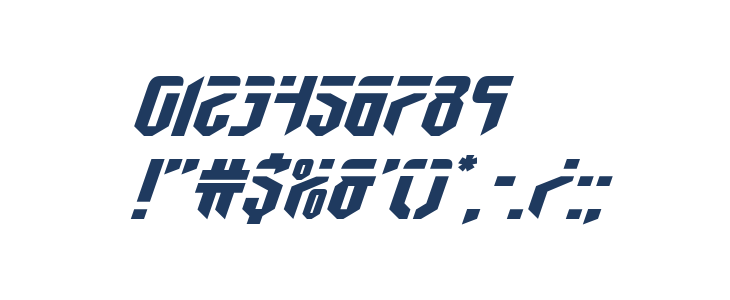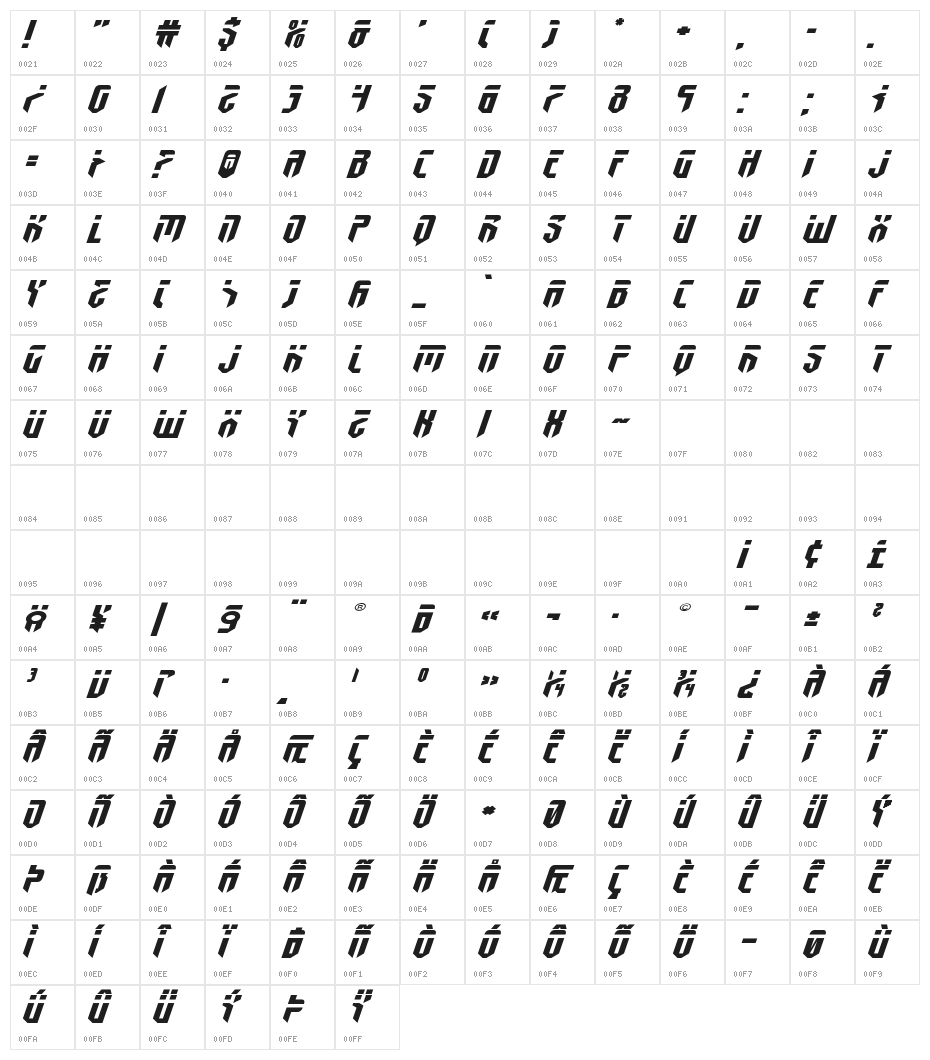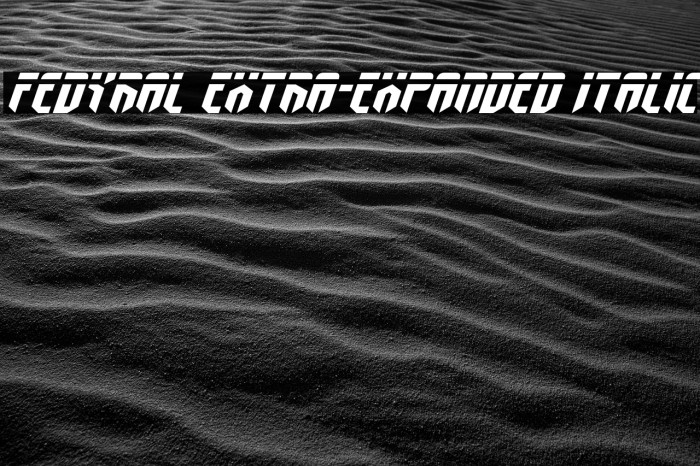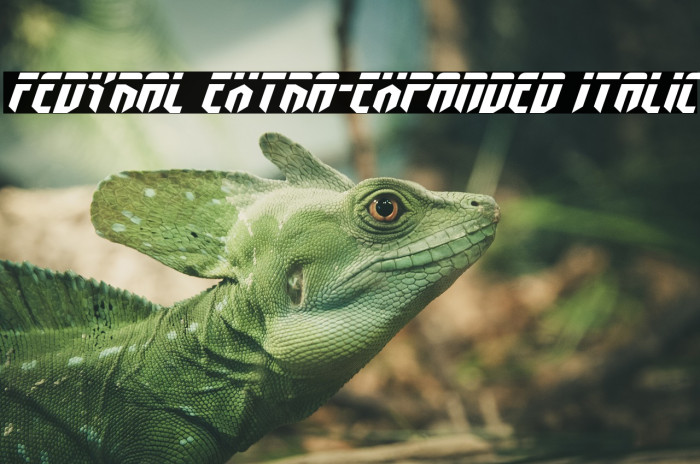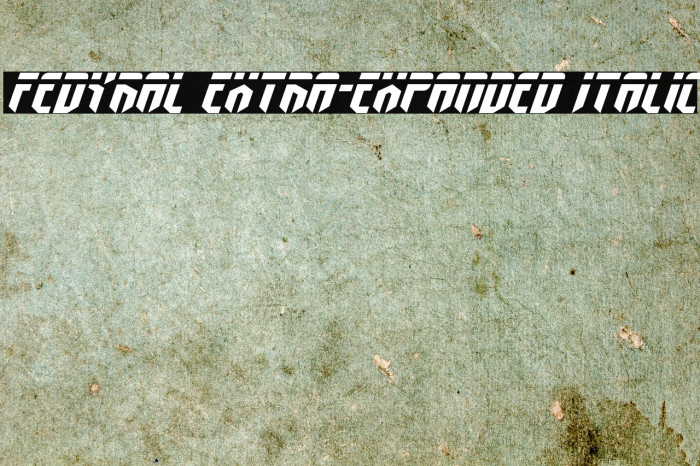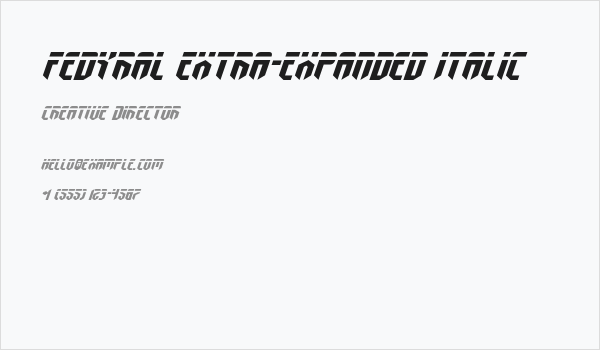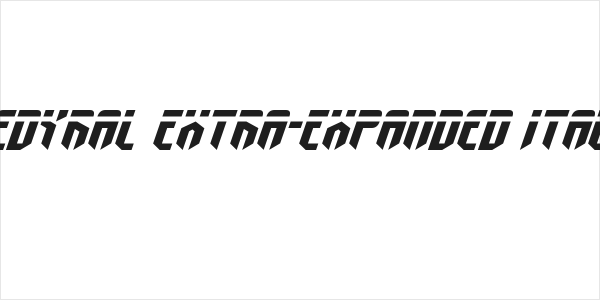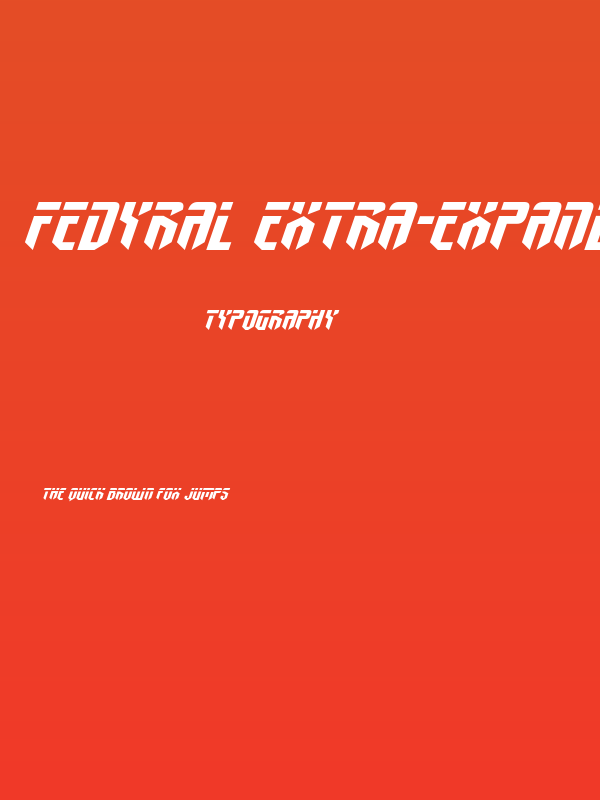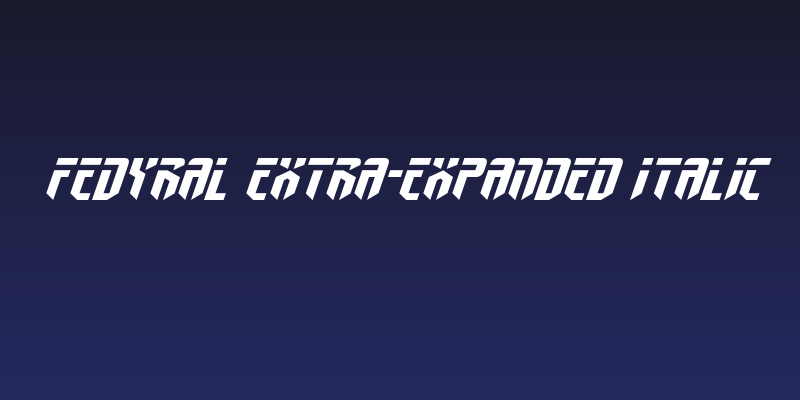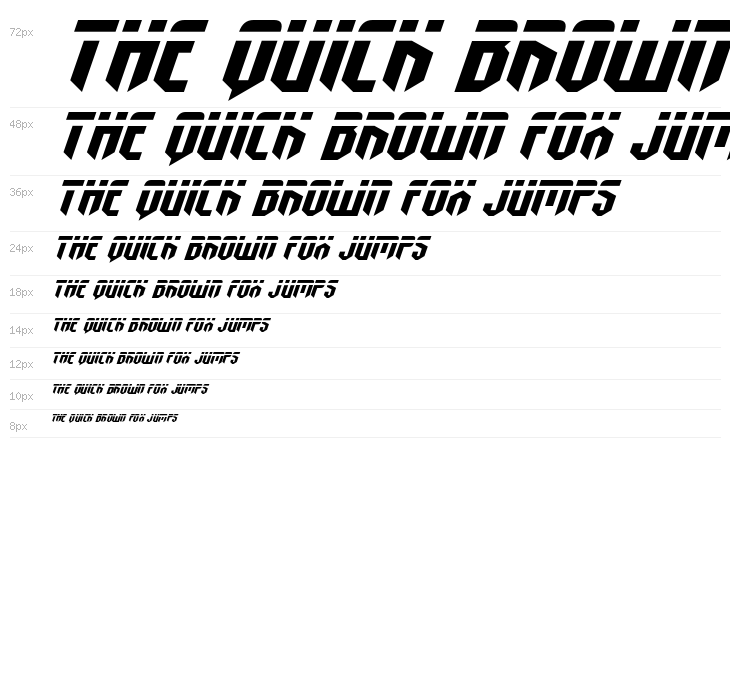
Fedyral Extra-Expanded Italic Font
Fedyral Extra-Expanded Italic Description
This font features a bold and dynamic style with a distinctly modern flair. The characters are extra-expanded, giving them a wide stance that commands attention. Each letter is sharply angled, creating a sense of motion and energy. The italic slant further enhances this dynamic quality, making it ideal for projects that require a sense of speed or urgency. The strokes are thick and consistent, contributing to a high-contrast appearance that ensures readability even at a distance. The overall design is sleek and futuristic, suitable for contemporary themes.
| Use Case | Logos, Headlines |
| Proposed Projects | Ideal for branding, sports team logos, automotive advertisements, and futuristic design projects. |